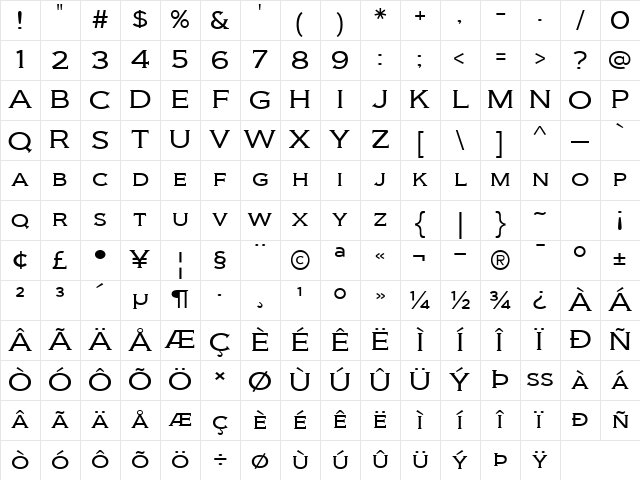
Biondi Light Free Font
Biondi Light
Biondi is a composed and adaptable typeface that performs quietly and consistently across a wide range of design contexts. Its slender proportions lend an understated elegance to any composition.